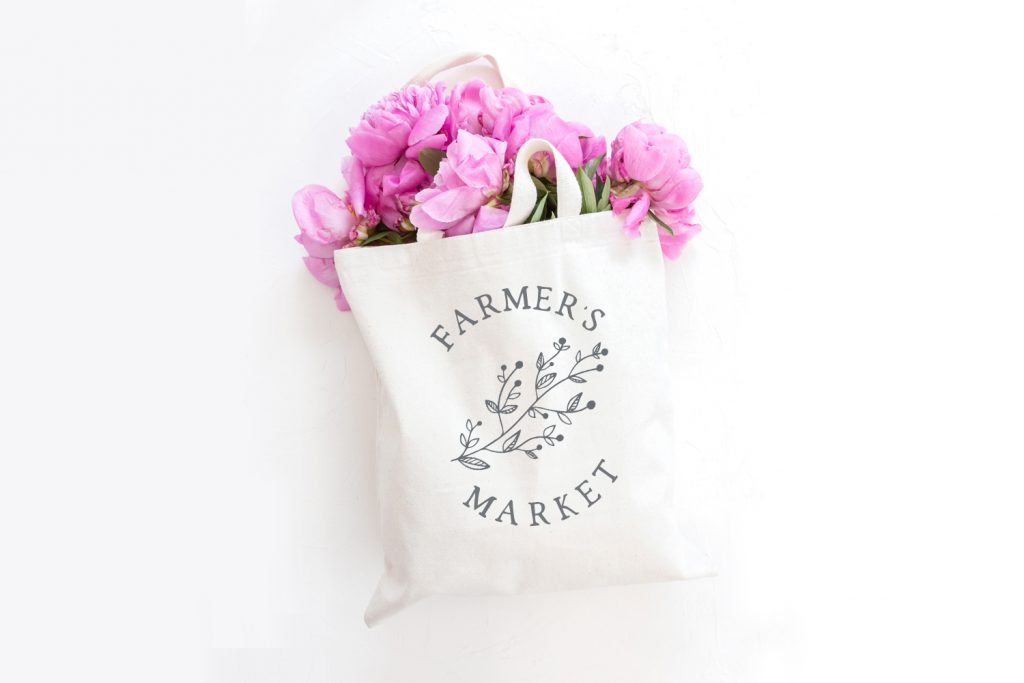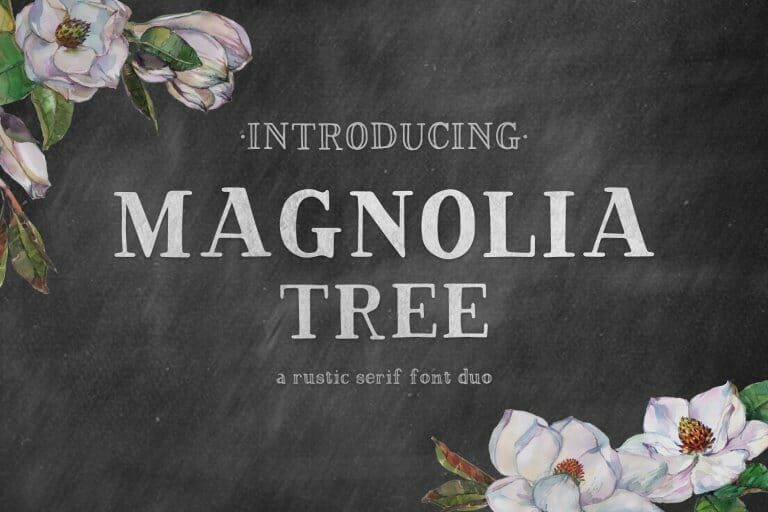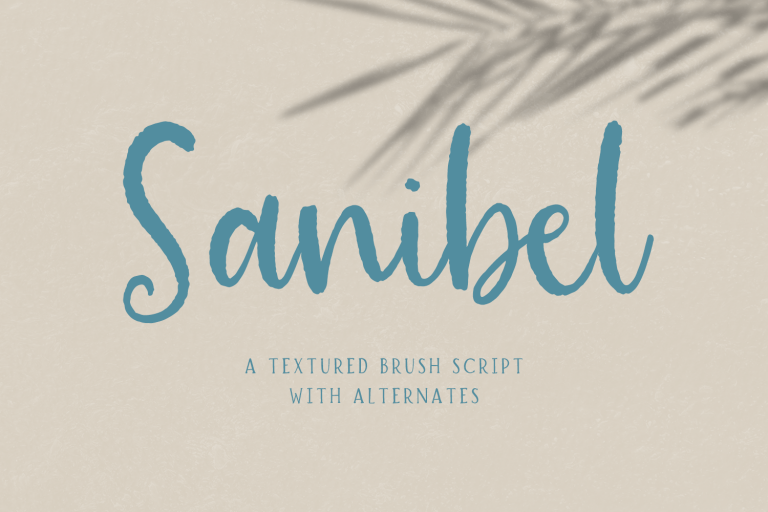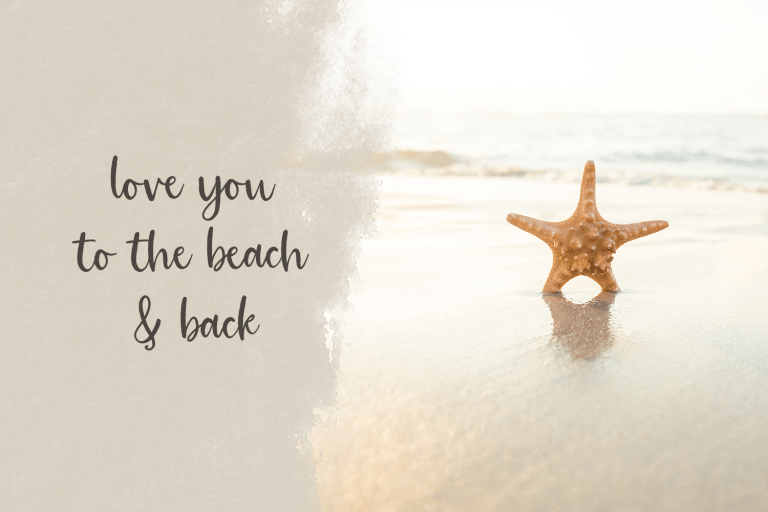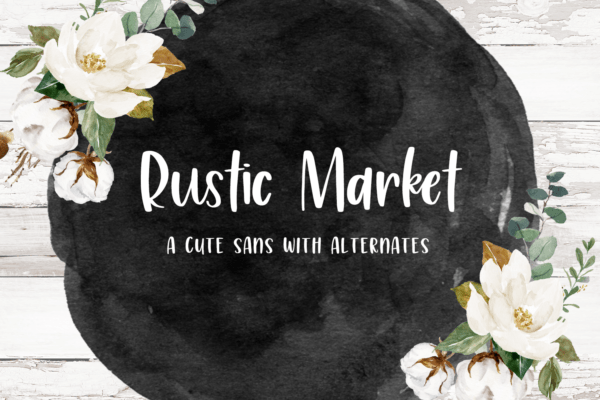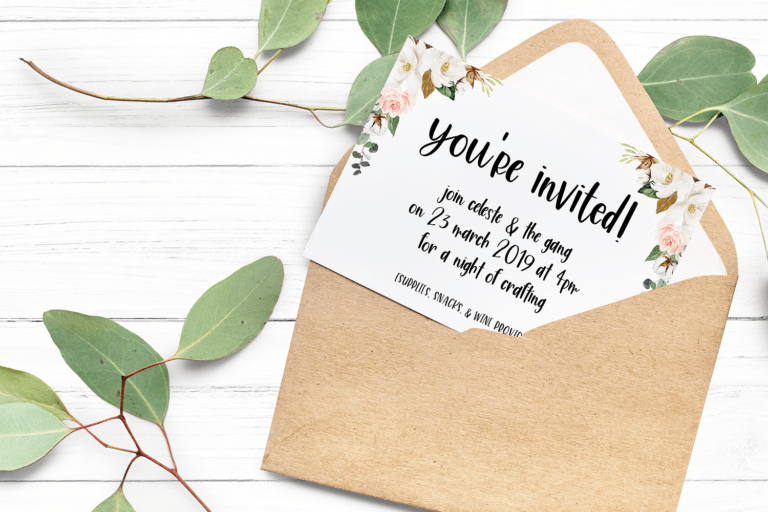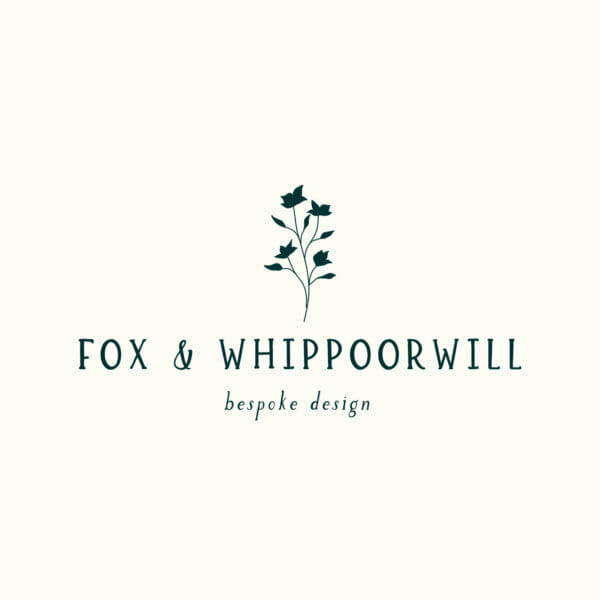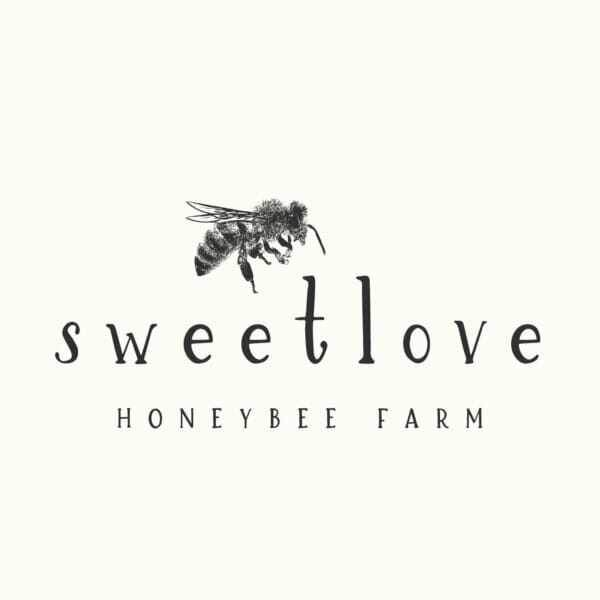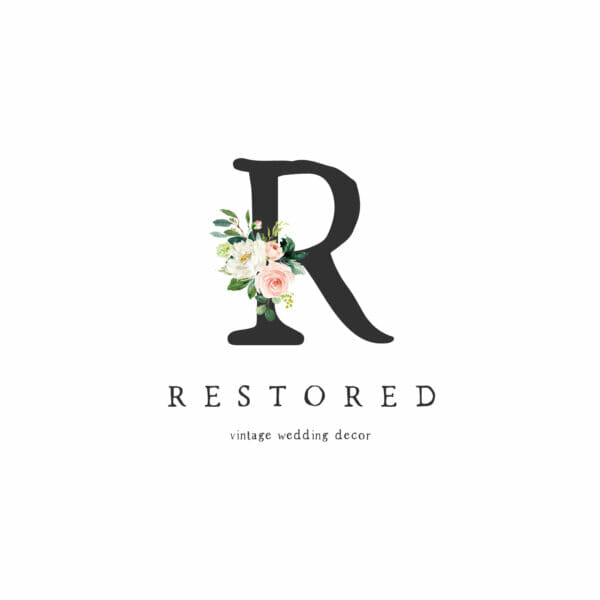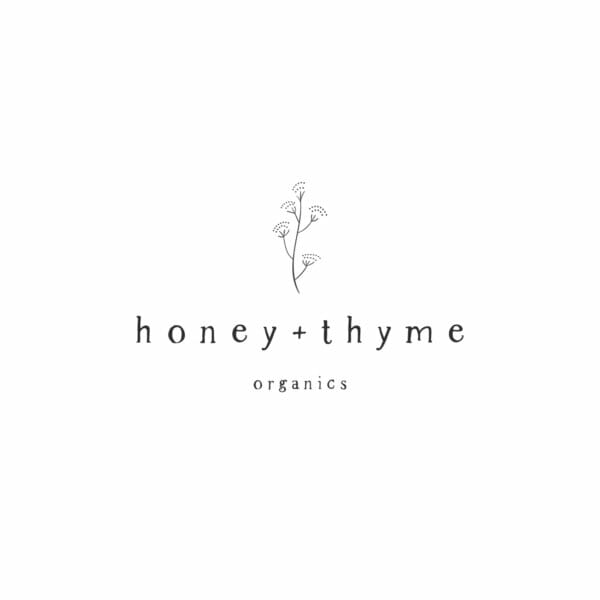
Similar to farmhouse fonts, rustic fonts can help to bring the perfect feel to your new website page or post with just the right typography styles. Rustic font styles can help give a vintage look to wood signs, as well, if you’re a Cricut or Silhouette user, so this isn’t limited to the online audience. Finding the perfect rustic font to complete your project can sometimes feel like Christmas morning!
Having spent so much time learning about typography, letter forms, and font styles, it’s not always an easy task to find the fonts that complete your design! It can be incredibly complex, and sometimes, a single letter can throw your entire design off & leave you in frustration over not quite nailing the style you had in mind. Don’t worry, though, there’s no need to resign yourself to a boring Times New Roman style font, I can help you with a look at how rustic typography can be put in just the right place!
I frequently get questions from my customers, asking which fonts might pair best together with some of my rustic font options. Rustic fonts come in all types of styles – sans serif, serif, cursive, and even brush fonts!
My Go-To Rustic Font
Brioche is my go-to rustic font these days….but the best part is that isn’t not a single font! It’s actually a font family. It includes more than one weight – regular and bold weights are included, and I also include an outline version, as well as an italic version of the font. How’s that for versatile, my friends?
Brioche is handlettered, but it doesn’t have quite the same handwriting look & feel that many other fonts have – it’s more precise, clean, and has a touch of simplicity. I like that it also has a slight vintage elegance.
This display font has a slight, subtle texture which really lends itself to the rustic, country style. Perhaps my favorite thing about this font is that it has a few extra characters, which are a little whimsical! The capital letters A, J, K, and R extend below the baseline and add a bit of play between the other characters.
Other Rustic Font Styles I Love
Spring Market Serif looks fantastic in all caps, and is a bit more rustic in nature than Brioche!
Magnolia Plantation includes two font styles – regular, and inline!
Sassafras Sans comes in two weights, and is reminiscent of Rae Dunn home decor!
Script Fonts
I think there is a misconception that rustic fonts are always more masculine in nature, and may be perhaps a bit harsh. That is not the case, though, because even script fonts can have a rustic, organic, or whimsical feel!
Sanibel Brush Font is one of my favorites to recommend whenever someone requests a recommendation for a cursive style font. Sanibel has a textured edge, which adds to the rusticity. When paired with that neat, bouncy calligraphy feel, it’s the perfect fit for your project if you need something that produces a more feminine result!
Sanibel is the kind of font that designers will find incredibly versatile, since you can use it for so many different things! This script font has a lot of cool features. In addition to the slightly rough edge, it boasts ligatures and alternate characters that enhance the handwriting style! This font pairs well with Brioche, which is the font I chose to label the features below! I’m a fan of using rustic fonts paired together just like that!
Sanibel is ideal for designs such as social media graphics, logos & branding, or even on your website to draw attention to headings. Here are a couple more examples!
Other Font Styles
Script and serif fonts are not the only style fonts I have available! Rustic Market Sans is another rustic font I have available! I mean, it even has the word “rustic” in its name! There are so many things that I love about this font! In comparison to some other rustic fonts, this actually has a very smooth edge. It cuts very cleaning on vinyl cutting machines like Cricut or Silhouette, which makes creating your own rustic & farmhouse style items a total breeze!
It also includes a full set of alternate characters — both upper and lowercase. It effectively makes it two fonts rolled together, which is probably the best reason this is so appealing to a designer like me! It’s hard to go wrong with more bang for your buck, and the lettering styles are entirely complementary of each other. It also includes all of the standards: punctuation marks, numbers, Western European language support, and it’s all PUA-encoded!
I don’t typically like to use mixed case for my projects, but even with this font, it looks totally cute! Check out the picture below – it creates a playful, fun mood!
When lettering & designing this font, I definitely had the crafting audience in mind. Like I said, smooth edges on each of the letters, a cute and whimsical look & feel, and the perfect touch for farmhouse chic designs!
I love the result this sort of font gives whenever you apply it to a t-shirt design, but I also find that it works really well on social media graphics, too! I also think that it would work really well for a website heading, or elements needing just a little more oomph and attention.